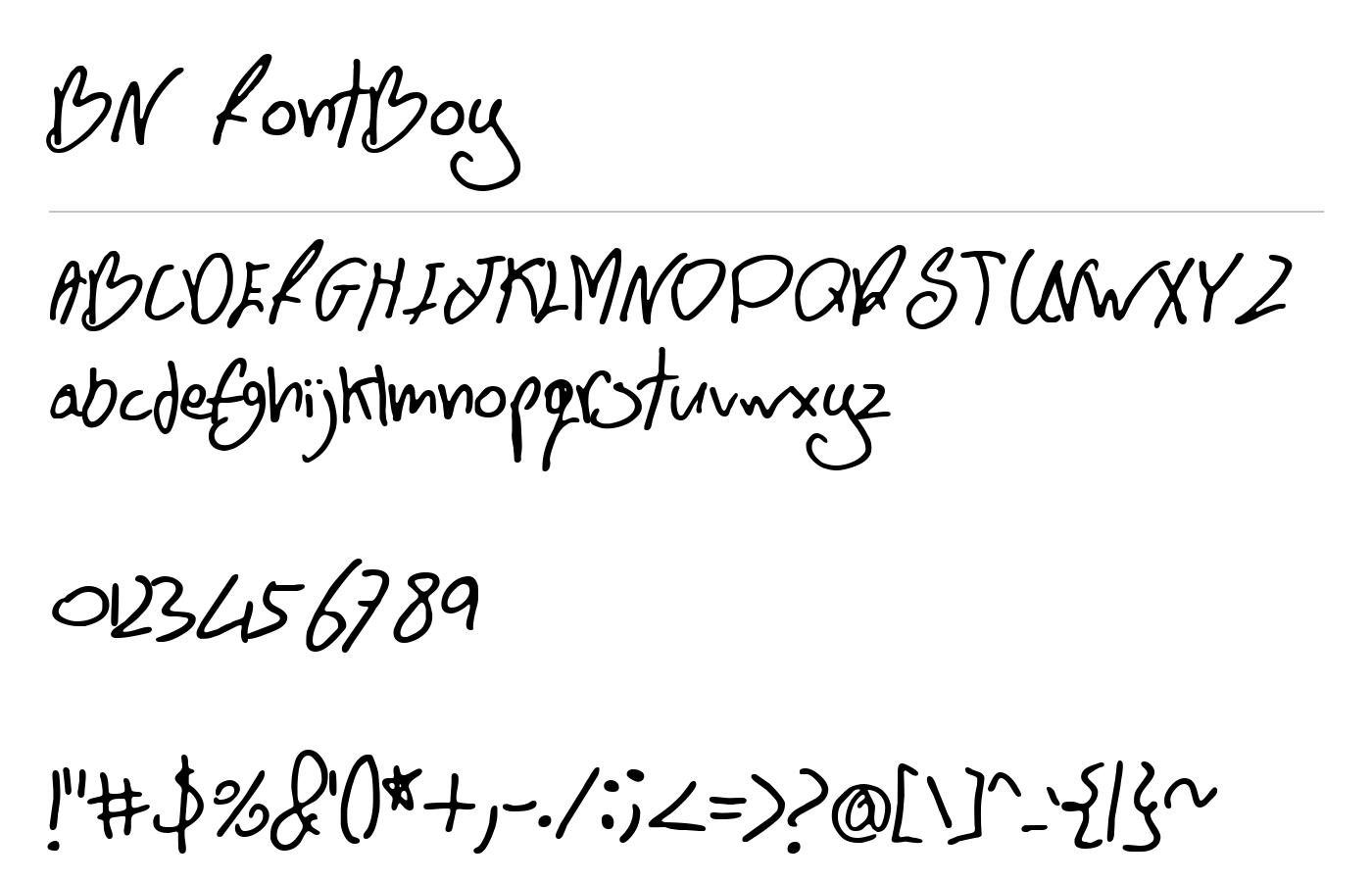
BN FontBoy is a lively handwritten script font with a playful and casual character, featuring irregular, slightly condensed letterforms with natural, flowing strokes that give it an authentic, personal touch. Its light weight and quirky details make it ideal for creative projects, friendly branding, and informal designs where a warm, approachable feel is desired. This font works well for headlines, invitations, or any context needing a unique, hand-drawn vibe that stands out with personality.
BN FontBoy Font
About BN FontBoy Font